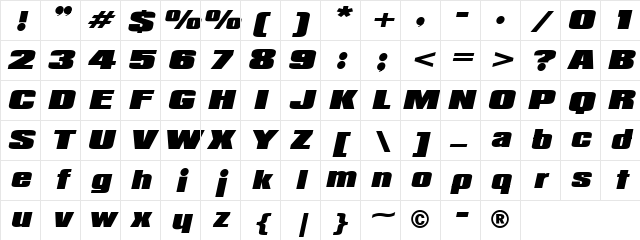
Padaloma Italic Italic
Style: Italic
Design Context for Padaloma Italic
Padaloma Italic is a composed and adaptable typeface that performs quietly and consistently across a wide range of design contexts. The slanted form adds forward momentum and visual energy.
Pro Tip: Use Padaloma Italic for emphasis, pull quotes, and subheadings where its slanted energy can add rhythm to the layout.